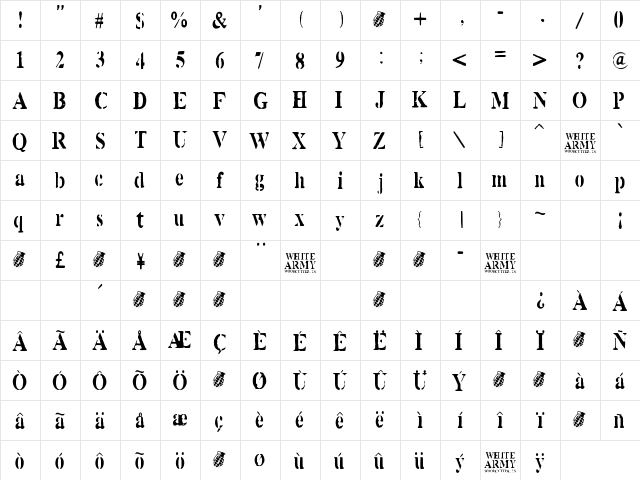
White Army Regular
| Designer | Woodcutter Manero |
Design Context for White Army Typeface
White Army has the no-nonsense character of military stencilling and tactical signage, projecting authority and directness.
Designed for tactical branding, military-inspired apparel, action game UI, and utility-focused signage.
Font Pairing: Use alongside a condensed or geometric sans for supporting copy — keep the pairing bold, functional, and free of ornament.
Pro Tip: Use White Army at medium-to-large sizes where its utilitarian structure can be appreciated — the character detail gets lost at small sizes.